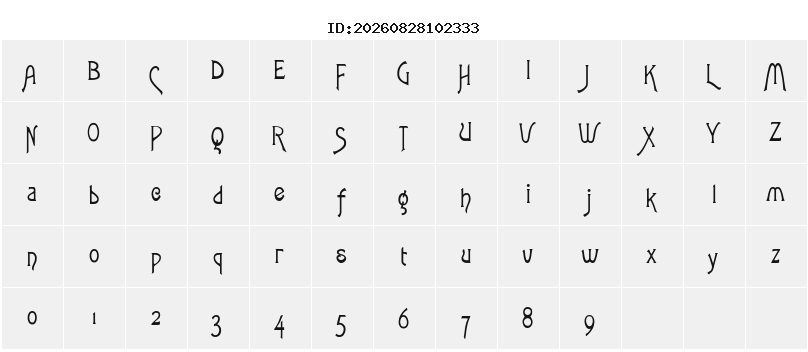
About ToulouseLautrec.ttf
ToulouseLautrec.ttf is a modern, elegant sans-serif font designed for ultimate readability and visual harmony. Perfect for branding, headlines, web design, and print materials.